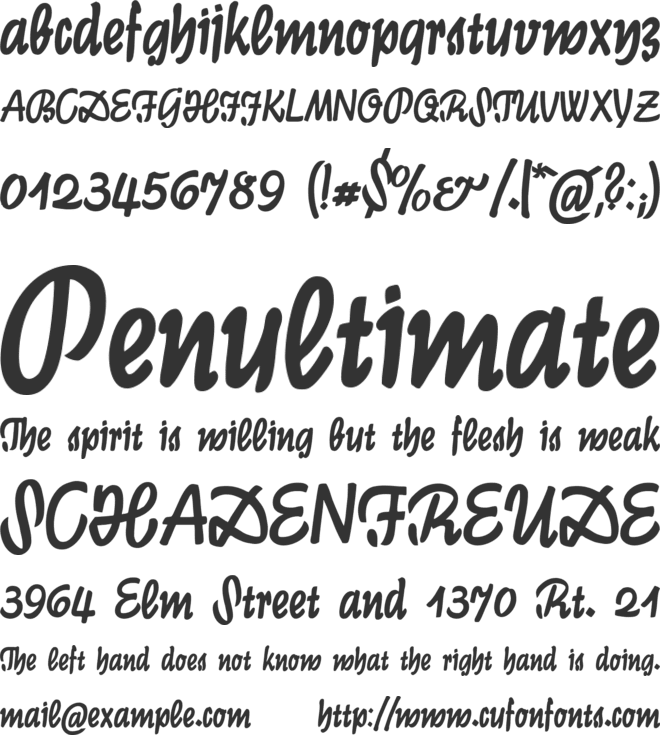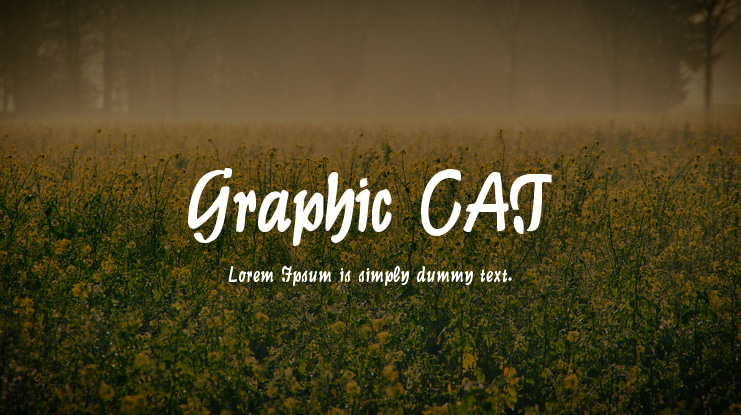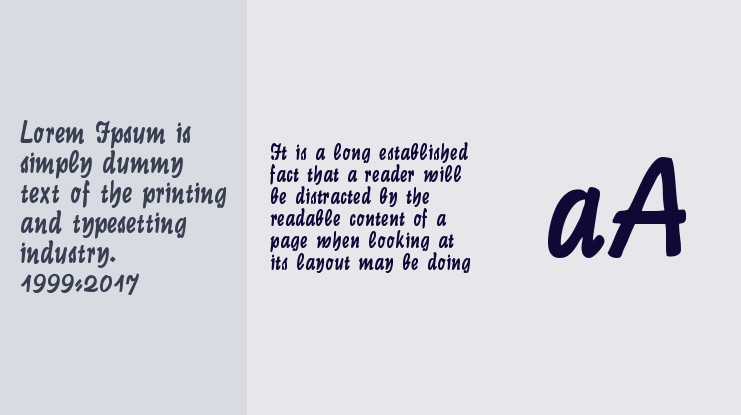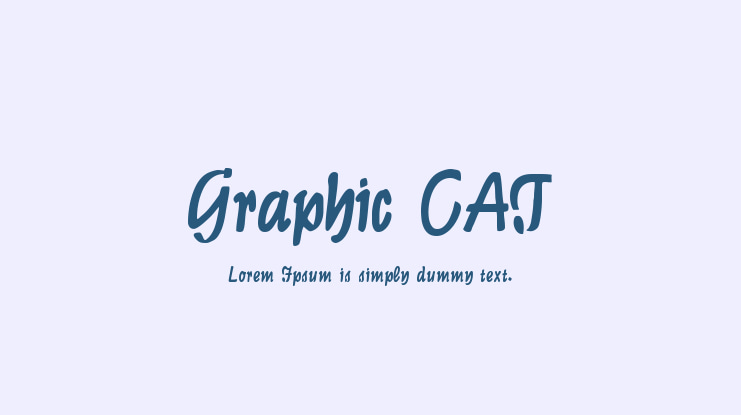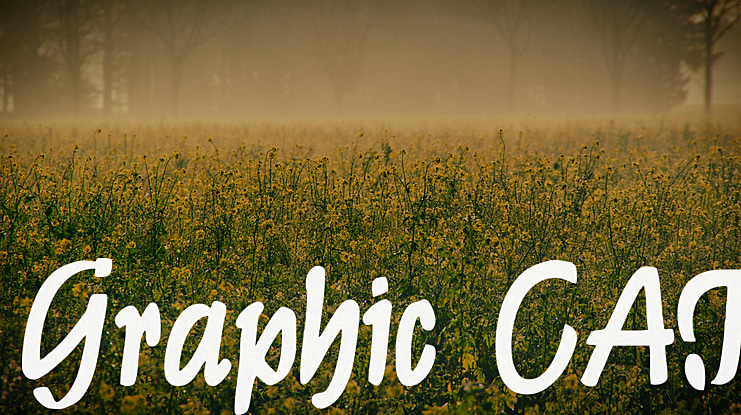
Graphic CAT Font Family
Prof. F. H. Ernst Schneidler 1934
Google translation of the original description in German: Bauer's foundry writes about this font: The Graphic is a brush script without connections and overhangs. With skilful use of the cone a very lively and effective typeface was achieved. Well, you need a cone, although no longer exploit sent, but that's true with the typeface today. And who says now, that would mean hunting sausage, which I like to tell the story behind it ...
In the 1980s I visited a supermarket, where the offers of the week were still painted by hand on a kind of wall paper. This was clearly a task for apprentices, so I watched as the young man standing on a ladder writing on the Billboard freshly wallpapered Poster Paper: "Jachtwurst" and the price to it. Now, in Hamburg that is how it is spoken. I briefly wondered how he could fix it now - otherwise he would have had to use another sheet of paper. so I said: "Hello, yacht is spelled with a Y!" "Really" "Yes, yacht is written with Y" "Hmm? I will fix it, but I think I'd better ask my boss! " Yes, do that! "- the Boy came off the ladder, and I focused on my purchases, and even saw how the poster artist disappeared in the office. When I arrived back in the parking lot with my purchase, there stood actually Yachtwurst on the price-poster.